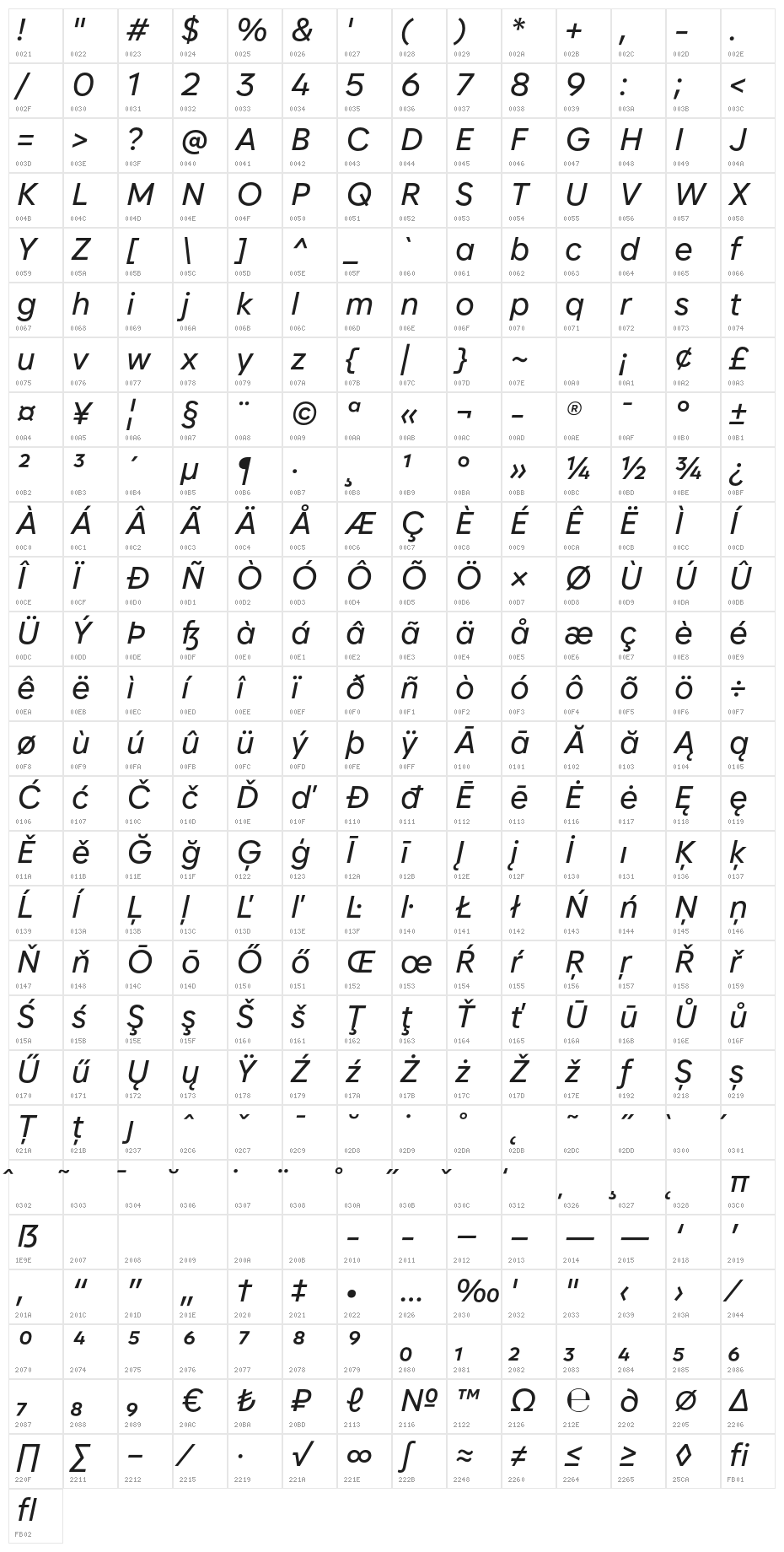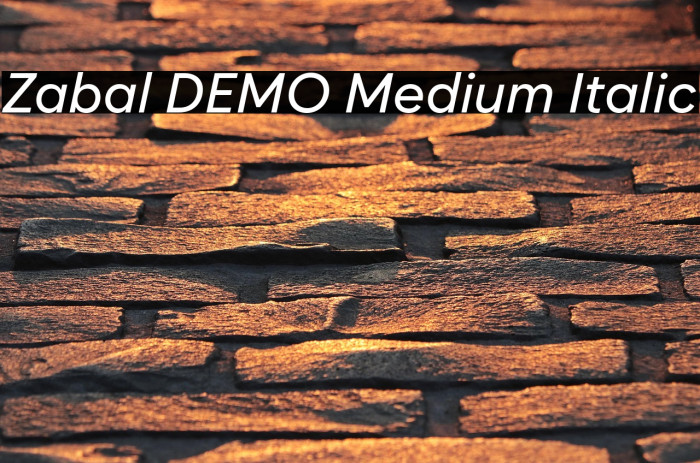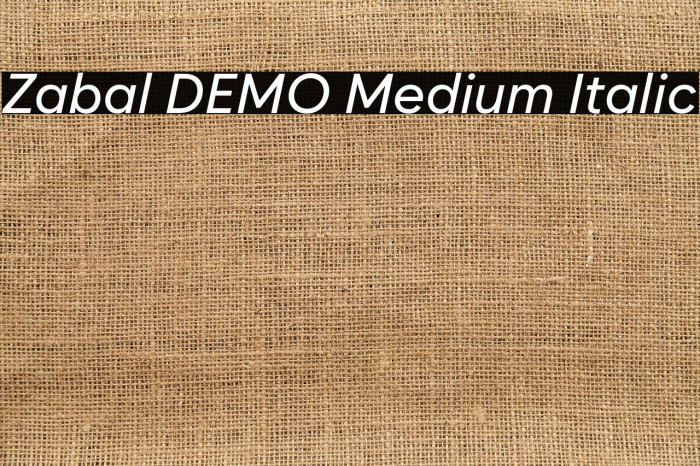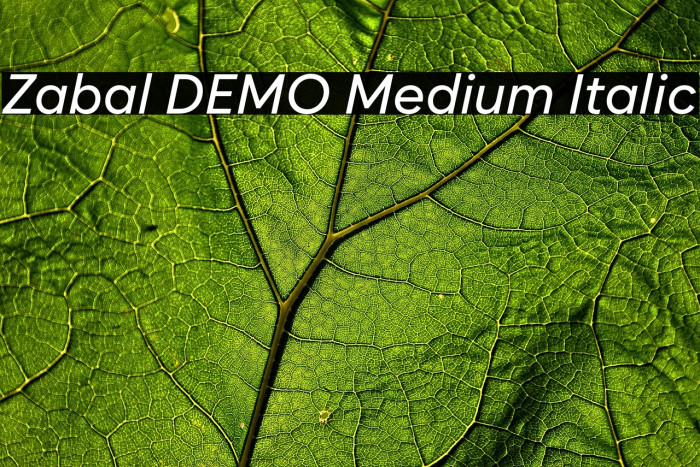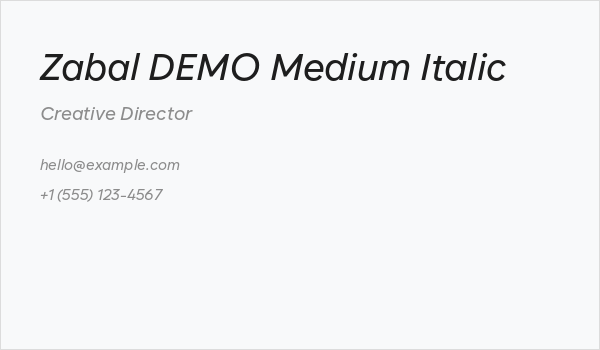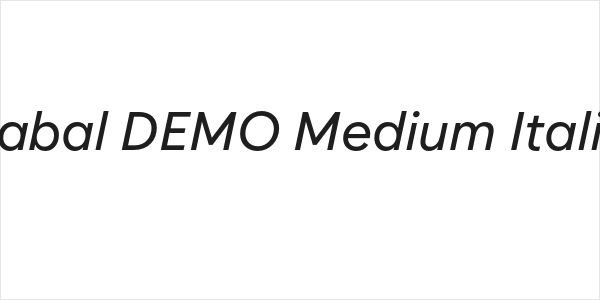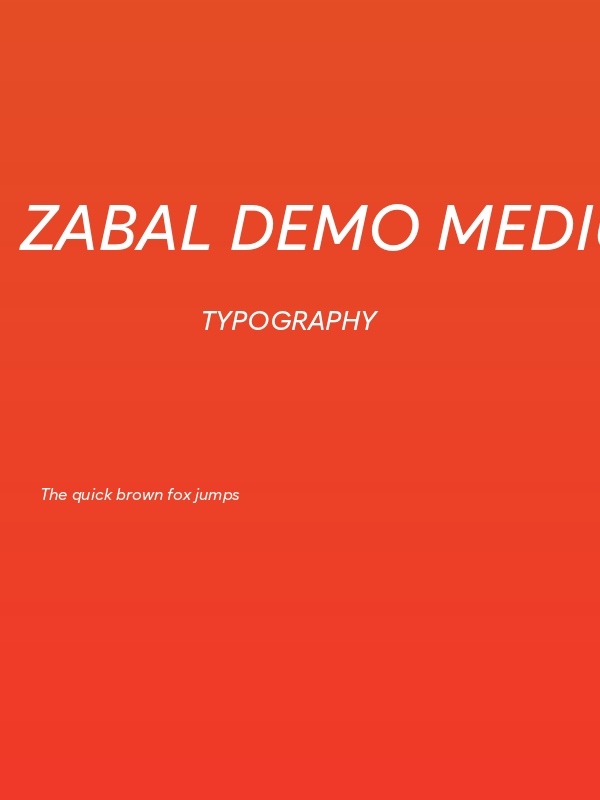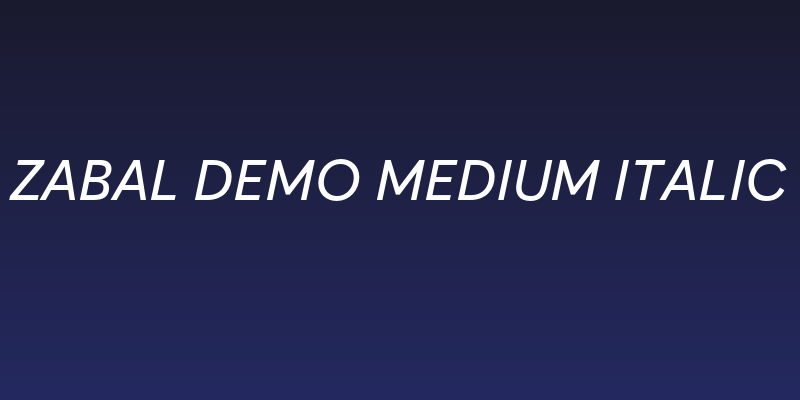
Zabal DEMO Medium Italic Font
Zabal DEMO Medium Italic Description
This font features a sleek and modern design with a slight italic slant, giving it a dynamic and forward-moving appearance. The characters are well-proportioned with a medium weight, providing a balanced look that is neither too heavy nor too light. The sans-serif style ensures clean lines and a contemporary feel, making it versatile for various design applications. The character spacing is normal, allowing for easy readability. The font exhibits medium contrast in stroke thickness, adding subtle elegance without compromising clarity.
| Proposed Projects | Ideal for branding, advertising, digital content, and editorial design where a modern and professional look is desired. |